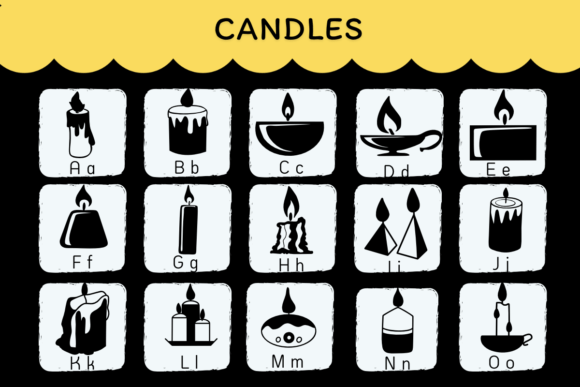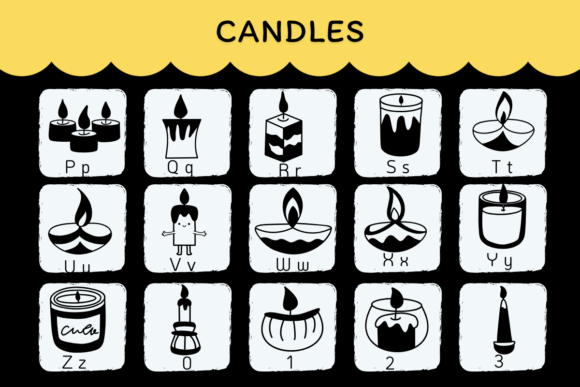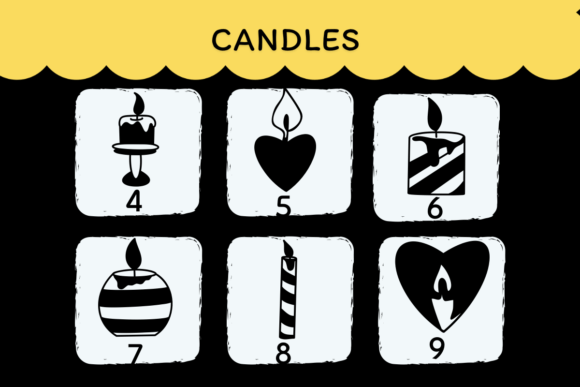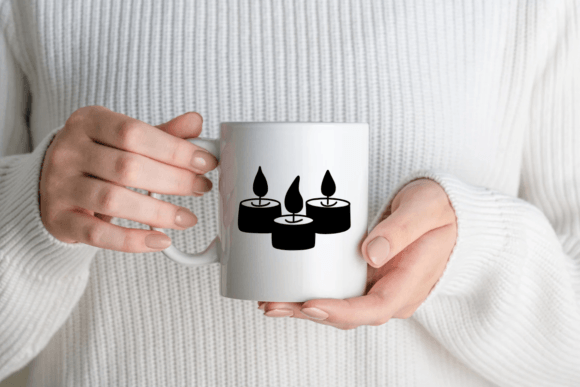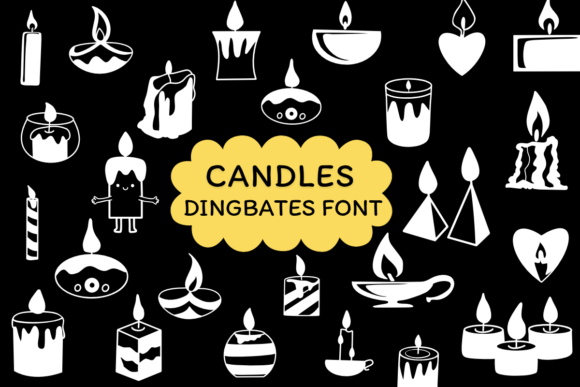
The Magic of Candles Font: Elevate Your Creative Projects with this Fun Dingbat Font
I still remember the time I was working on a wedding invitation project, and my client asked me to add a touch of whimsy to the design. I scoured the internet for the perfect font, but nothing seemed quite right. That was until I stumbled upon Candles Font, a fun dingbat font with a cool theme that perfectly captured the essence of the occasion. In this article, I’ll share my experience with Candles Font, its features, and how to make the most of it in your creative projects.
An Honest Review of Candles Font
What I Love About Candles Font ✨
- Unique and quirky design that’s perfect for creative projects ✅
- Extensive library of glyphs and symbols to add a personal touch 🎨
- Easy to use and pairs well with a variety of fonts, making it a versatile addition to any design project 👫
- Perfect for a wide range of applications, from wedding invitations to DIY crafts and decorations 🎉
The Backstory of Candles Font
Candles Font was designed by a team of creatives who wanted to create a unique and playful font that would add a touch of personality to any design project. Inspired by the warm glow of candles, the font features a range of glyphs and symbols that evoke a sense of coziness and whimsy. Whether you’re working on a wedding invitation, DIY craft, or decoration, Candles Font is the perfect choice.
Q: What type of projects is Candles Font best suited for?
Candles Font is perfect for a wide range of creative projects, including wedding invitations, DIY crafts, decorations, logos, and more.